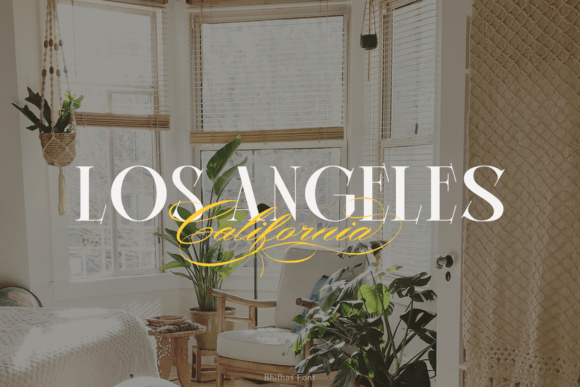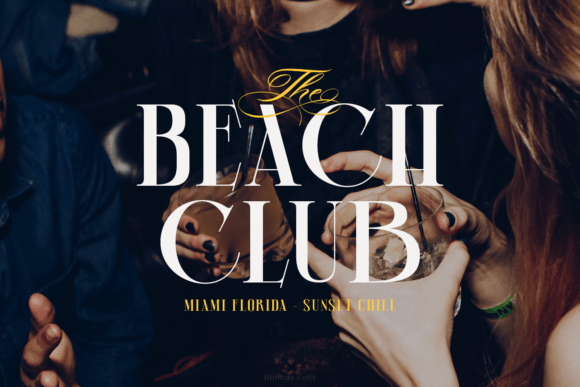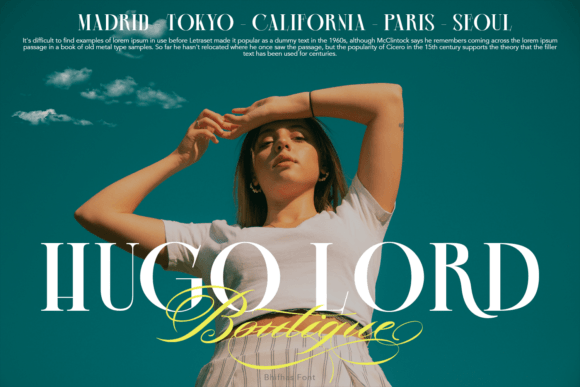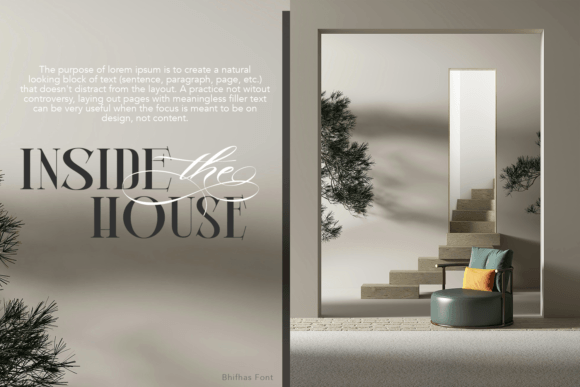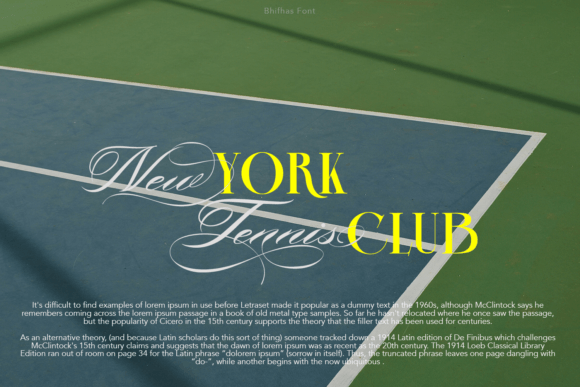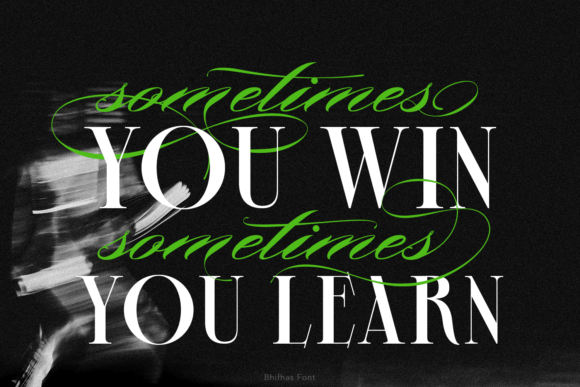
Bhifhas Font: Elevate Your Designs with Elegance and Sophistication
In the realm of typography, fonts play a pivotal role in conveying messages, evoking emotions, and enhancing the aesthetic appeal of designs. Among the myriad of fonts available, Bhifhas stands out as a unique and captivating serif display font. This article aims to explore the distinctive features of Bhifhas and how it can elevate your design projects.
Introduction to Bhifhas Font
Bhifhas is a serif display font characterized by its single weight and all-caps design. This font is not just about conveying information; it’s about making a statement. Its legible and expressive shapes ensure that your message is not only communicated clearly but also with a touch of elegance and sophistication.
Key Features of Bhifhas Font
• Single Weight and All Caps: The single weight of Bhifhas provides a consistent and streamlined look, making it perfect for headings and titles. Its all-caps design adds to its commanding presence, ensuring your text stands out.
• Legible and Expressive Shapes: The design of Bhifhas focuses on readability without compromising on style. Its shapes are crafted to be both expressive and clear, making it suitable for a wide range of design applications.
• Stylish Alternate Characters: One of the standout features of Bhifhas is its collection of stylish alternate characters. These alternatives offer designers the flexibility to add variety and personality to their text, preventing it from looking monotonous.
• Ligatures: Ligatures in typography refer to the joining of two or more letters into a single glyph. Bhifhas includes a range of ligatures, adding a touch of sophistication and fluidity to the text. This feature is particularly useful in display fonts, where aesthetics are paramount.
Applications of Bhifhas Font
The versatility of Bhifhas makes it suitable for a multitude of design projects. Here are some areas where Bhifhas can make a significant impact:
• Branding and Logos: The distinctive and elegant look of Bhifhas makes it an excellent choice for branding and logo designs. Its unique character set can help create a memorable brand identity.
• Advertising and Marketing Materials: For advertisements, posters, and marketing materials, Bhifhas can add a level of sophistication and professionalism. Its readability ensures that messages are conveyed effectively.
• Packaging Design: Packaging design requires fonts that are both stylish and legible. Bhifhas fits the bill perfectly, offering a way to make product packaging stand out on the shelves.
• Digital Media: In digital media, such as website headers, social media graphics, and digital advertisements, Bhifhas can add a touch of elegance and refinement. Its clear and expressive shapes are well-suited for both desktop and mobile viewing.
Tips for Using Bhifhas Font Effectively
To make the most of Bhifhas, consider the following tips:
• Pair with Complementary Fonts: When using Bhifhas for headings, pair it with a simpler font for body text. This contrast can enhance readability and create visual interest.
• Experiment with Alternates and Ligatures: Don’t hesitate to experiment with the alternate characters and ligatures available in Bhifhas. These features can add a unique touch to your designs.
• Consider Color and Size: The impact of Bhifhas can be further amplified by thoughtful color choices and appropriate sizing. Ensure that the font color contrasts well with the background and that the size is legible across different mediums.
Font Name Bhifhas Font
Author madeDeduk
Bhifhas font offers a unique blend of elegance, expressiveness, and readability, making it a valuable addition to any designer’s toolkit. Its distinctive features, such as stylish alternate characters and ligatures, provide the flexibility needed to create standout designs. Whether you’re working on branding, advertising, packaging, or digital media, Bhifhas can help elevate your projects to new heights of sophistication and professionalism. Explore the possibilities of Bhifhas and discover how it can transform your designs.